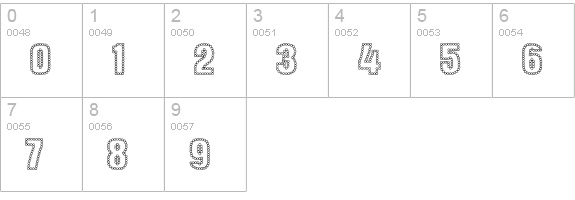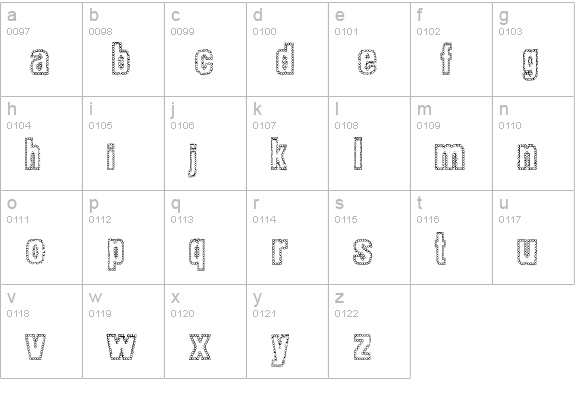
Dot Trail font is a modern and stylish typeface that adds a touch of sophistication to any design project. With its unique dotted trail effect, this font is perfect for creating eye-catching headings, logos, and branding materials. The clean and sleek lines of Dot Trail font make it versatile and suitable for a wide range of design applications. What makes Dot Trail font even more appealing is that it is available for free download at FontsMarket.com. This means that you can easily access this high-quality font without any cost, making it a valuable addition to your font collection. Whether you are a graphic designer, artist, or hobbyist, Dot Trail font is sure to inspire your creativity and enhance your projects. Download now and start incorporating this beautiful font into your designs today!